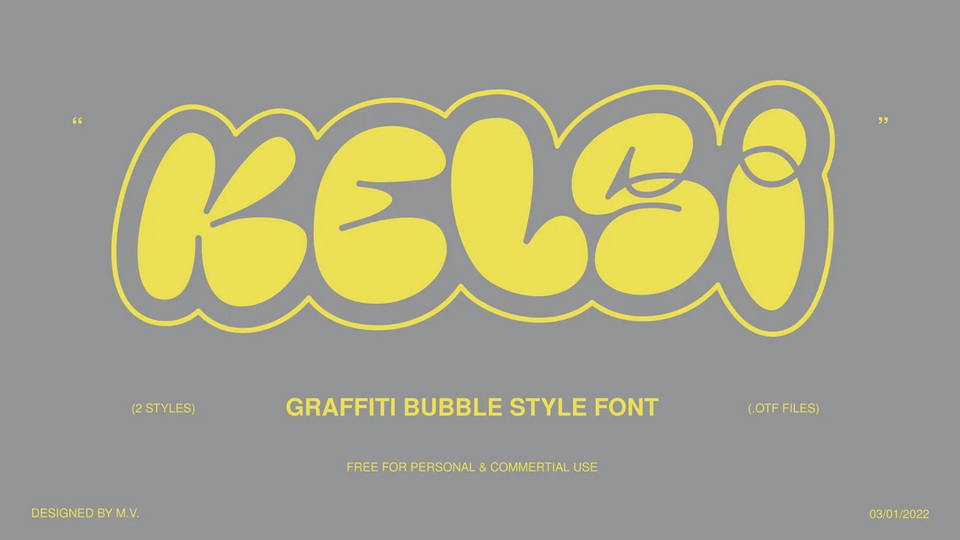
Download Kelsi font, a graffiti bubble style typeface. With its street vibe and playfulness, Kelsi font is perfect for clothing, packaging, posters and album artworks.
Designer: Misha Vlasov